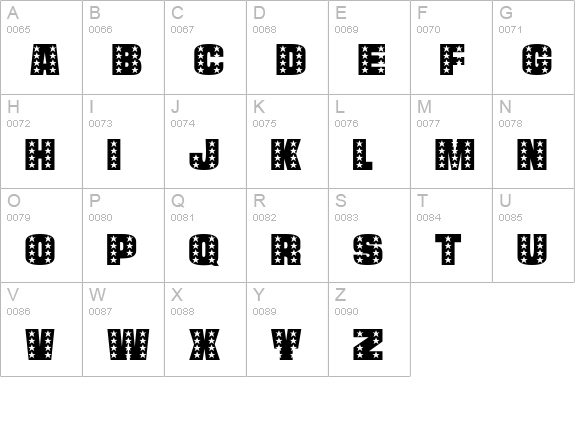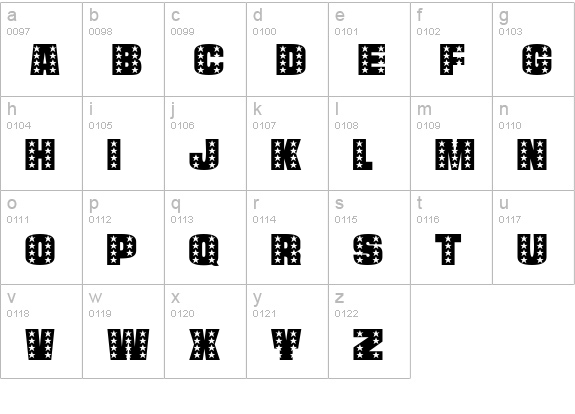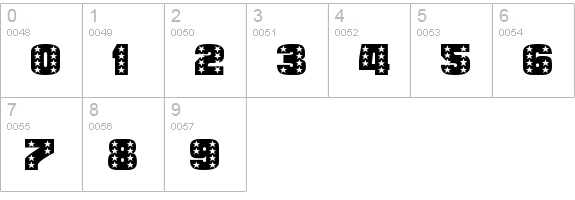
StarsCaps Font Details
StarsCaps font is a stunning display typeface that will add a touch of elegance and sophistication to any design project. This font is perfect for creating eye-catching headlines, logos, posters, and more. Its unique and intricate letterforms are inspired by the beauty and wonder of the night sky, with each character adorned with delicate stars that twinkle and shine. With its bold and stylish appearance, StarsCaps font is sure to make a lasting impression. Its clean and precise lines give it a modern edge, while the decorative stars add a touch of whimsy and charm. Whether used in print or digital media, this font is sure to capture attention and leave a lasting impression. And the best part? StarsCaps font is completely free! That's right, you can download this amazing font without spending a dime. It is freely available to download at FontsMarket.com, a trusted source for high-quality fonts. So why wait? Give your designs that extra sparkle and download StarsCaps font today.